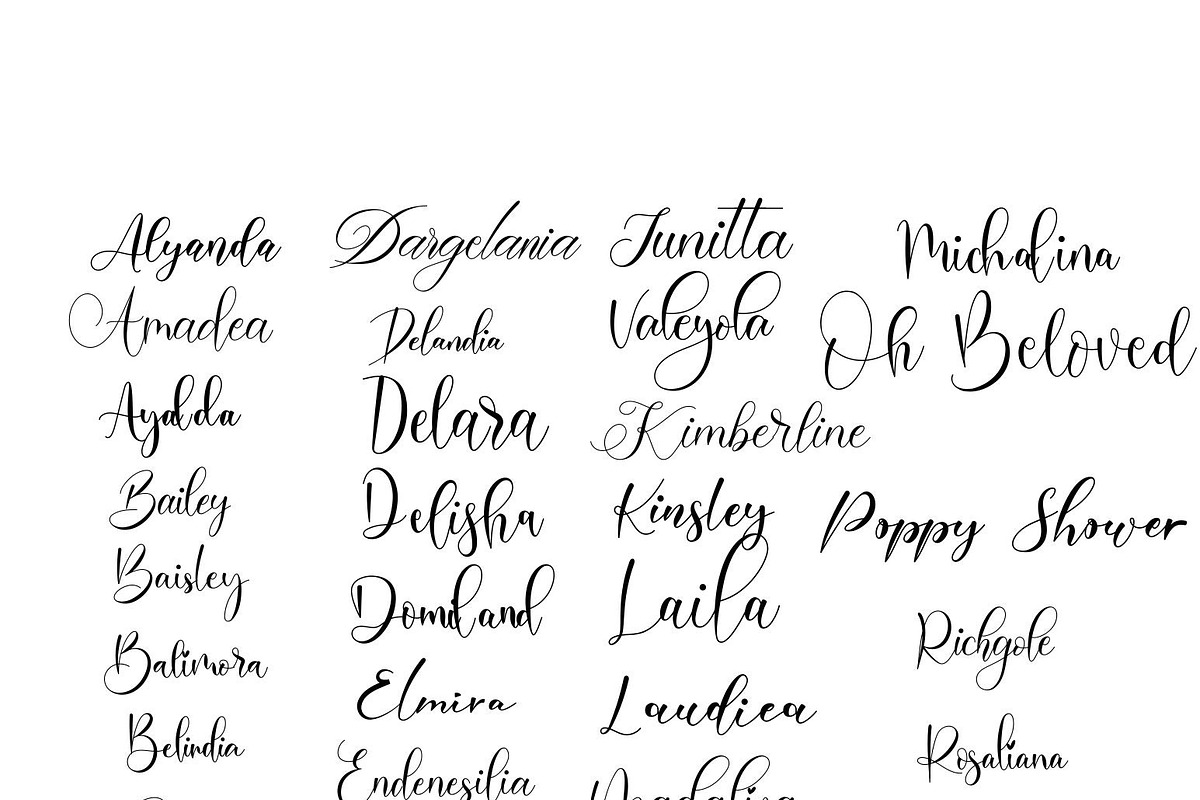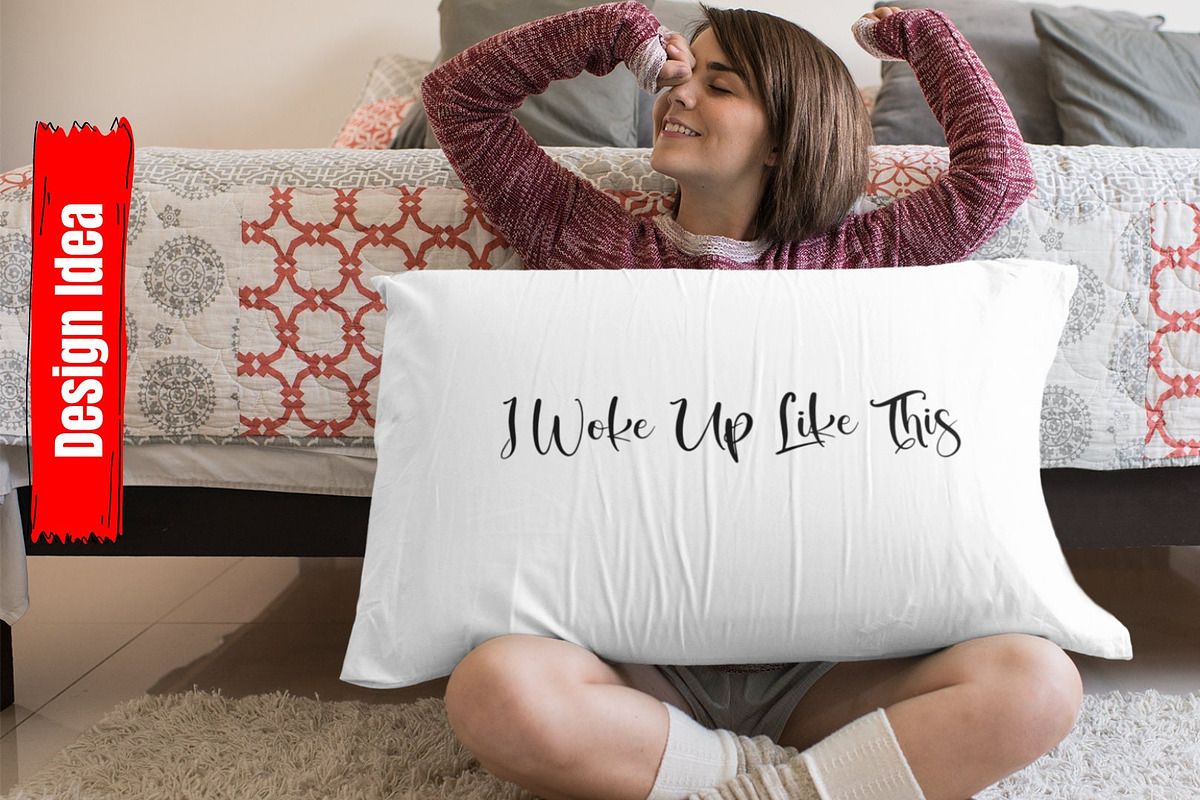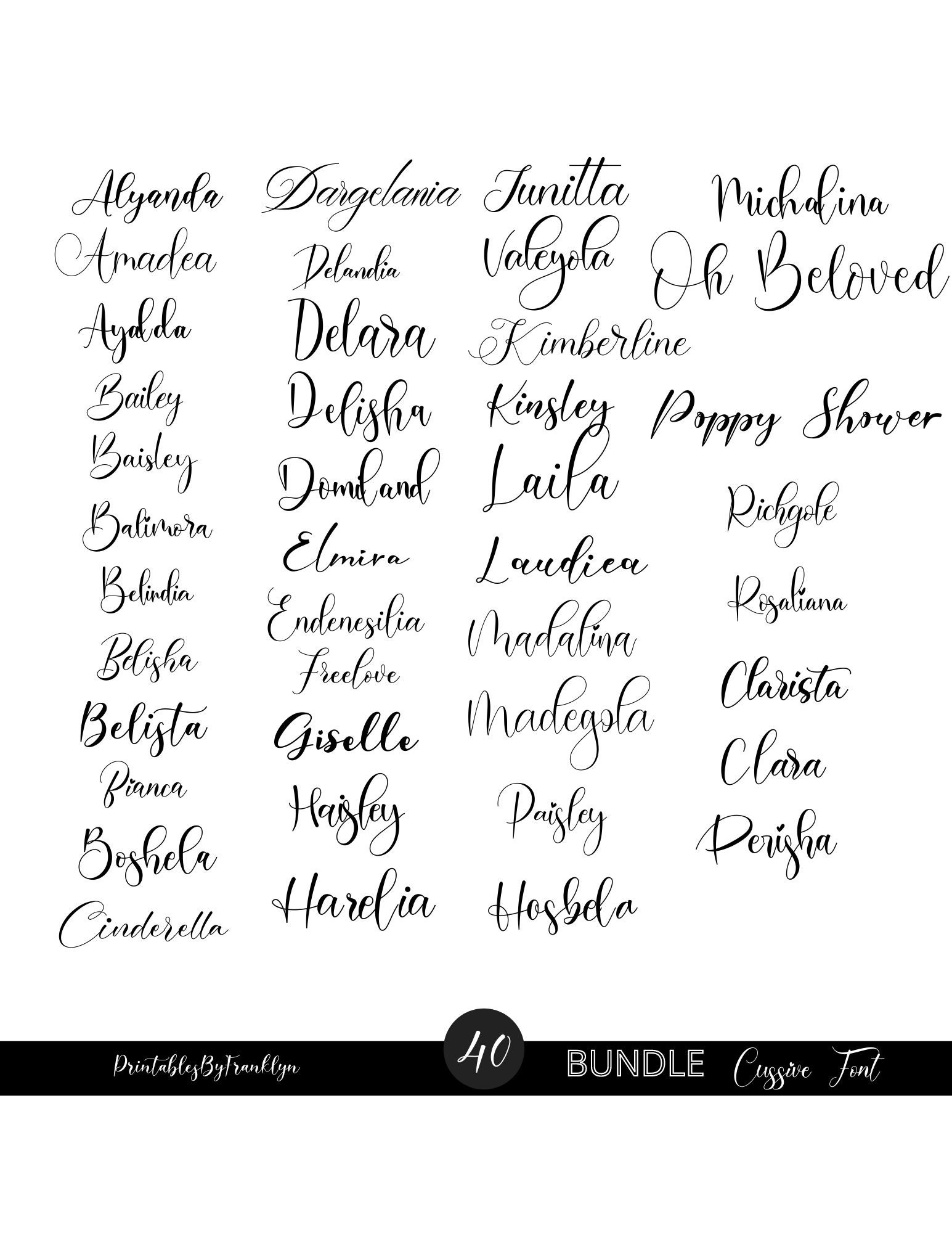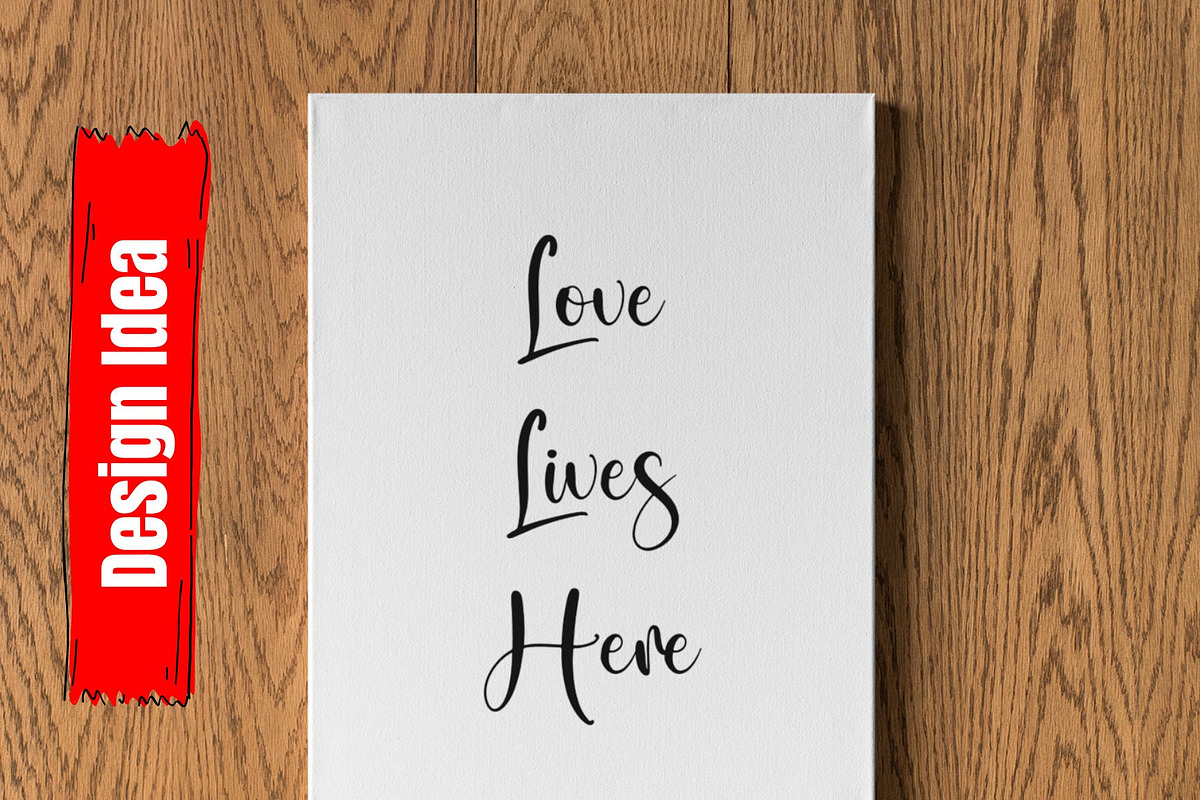
40 Cursive Font Bundle
Elevate your design projects with the extraordinary Cursive Font Bundle! With a collection of 40 meticulously crafted fonts, this bundle is a treasure trove of style and elegance. From weddings to Christmas cards, commercial designs, and beyond, these fonts will add a touch of sophistication to any project.
Each font in this bundle exudes a natural and flowing cursive style, giving your creations a personal and authentic feel. The carefully crafted letterforms bring a sense of artistry to your designs, making them truly stand out.
Not only are these fonts beautifully designed, but they are also incredibly user-friendly. They can be easily incorporated into your projects, whether you're a professional designer or a creative hobbyist. The fonts are compatible with circuits, making them perfect for DIY projects and crafts. Let your imagination run wild as you explore the endless possibilities of these versatile fonts.
With this font bundle, you'll always have the perfect typeface at your fingertips. From elegant wedding invitations to eye-catching Christmas cards, the variety of fonts ensures that you'll find the ideal match for any occasion.